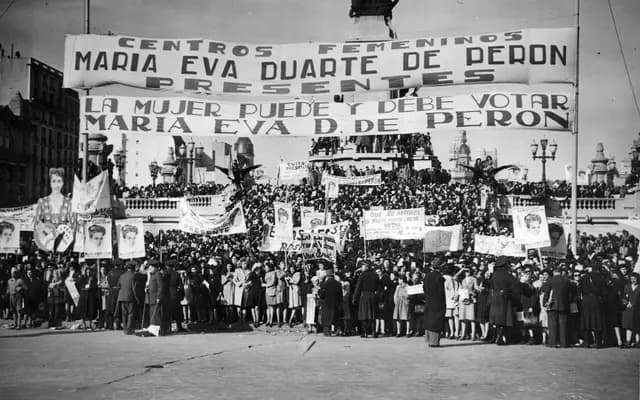
A display typeface drawn from the hand-lettered banners of a 1957 women's suffrage demonstration in Buenos Aires, part of Vocal Type's broader project recovering type from marginalised historical movements.
Rooted in the lettering of Argentine suffragist protest, the typeface takes its name and spirit from Eva Perón, whose campaigning was central to the passage of Argentina's women's suffrage law. Vocal Type draws from primary visual sources of activist movements, treating each typeface as a piece of social history rather than a purely aesthetic exercise. The result carries the weight and directness of hand-made signage while functioning as a usable display family.
Inspired by hand-lettered protest banners from a 1957 Buenos Aires demonstration, the typeface carries the informal, expressive character typical of display type drawn from activist and vernacular lettering sources.